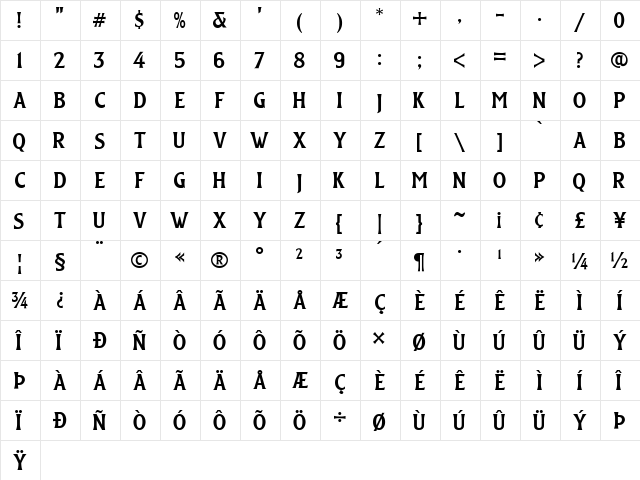
Edsbacka Flare Serif Regular
Design Context for Edsbacka Flare Serif Typeface
Edsbacka Flare Serif carries the refined structure of traditional serif typography, with bracketed terminals and considered proportions that communicate credibility and craft.
Pro Tip: Use Edsbacka Flare Serif for editorial body copy and considered headline work. Pair with a neutral sans for UI elements or captions to create a classic hierarchy.